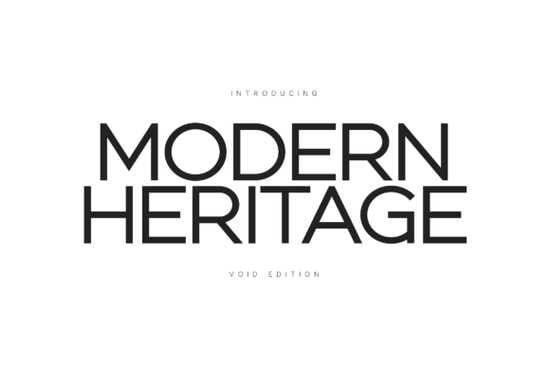
When it comes to choosing the right font for your design projects, Modern Heritage Font stands out as a versatile and stylish option. This high-contrast sans-serif font is perfect for anyone looking to add a touch of modern elegance to their work. Whether you're designing for an architectural firm, an interior design studio, or a high-end fashion label, Modern Heritage (Void Edition) offers a unique blend of timeless proportions and contemporary sharpness.
Why Choose Modern Heritage Font?
Modern Heritage (Void Edition) is designed to master the art of negative space, making it ideal for creating a minimalist aesthetic. The generous x-height and ultra-clean, monolinear strokes give this font a sense of openness and "breathability," even in dense layouts. This makes it a great choice for both print and digital designs where clarity and readability are essential.
How Does It Compare to Other Sans-Serif Fonts?
While there are many sans-serif fonts available, Modern Heritage (Void Edition) sets itself apart with its distinctive features. For instance, if you compare it to Hoodie Font, you'll notice that Modern Heritage has a more refined and professional look, making it suitable for high-end branding and corporate use. On the other hand, Sweet Home Font has a more casual and friendly vibe, which might be better suited for personal or creative projects.
Perfect for High-End Branding
Modern Heritage (Void Edition) is particularly well-suited for high-end luxury brands and sleek, tech-focused interfaces. Its polished and futuristic presence can help establish a strong, professional image. Whether you're working on a new logo, a website, or marketing materials, this font can help you create a design that feels both established and forward-thinking.
Use Cases for Modern Heritage Font
- Architectural Firms: The clean lines and sharp edges of Modern Heritage (Void Edition) make it a perfect fit for architectural presentations and brochures.
- Interior Design Studios: Use this font to create elegant and modern-looking portfolios and client proposals.
- High-End Fashion Labels: Add a touch of sophistication to your fashion brand's visual identity with this font.
- Corporate Branding: Modern Heritage (Void Edition) can help you create a professional and modern look for your business cards, letterheads, and other corporate documents.
Tips for Using Modern Heritage Font Effectively
To get the most out of Modern Heritage (Void Edition), here are a few tips:
- Balance with Negative Space: Take advantage of the font's high-contrast and clean lines by using plenty of negative space in your designs. This will help highlight the font's elegance and readability.
- Pair with Complementary Fonts: Consider pairing Modern Heritage (Void Edition) with a complementary serif or script font for a balanced and visually appealing design.
- Test Readability: Before finalizing your design, test the font in different sizes and contexts to ensure it remains readable and effective.
Modern Heritage (Void Edition) is a fantastic choice for designers, crafters, and small businesses looking to add a modern and sophisticated touch to their projects. Its versatility and clean, professional look make it a valuable addition to any design toolkit. By following the tips above, you can effectively use this font to create stunning and impactful designs.